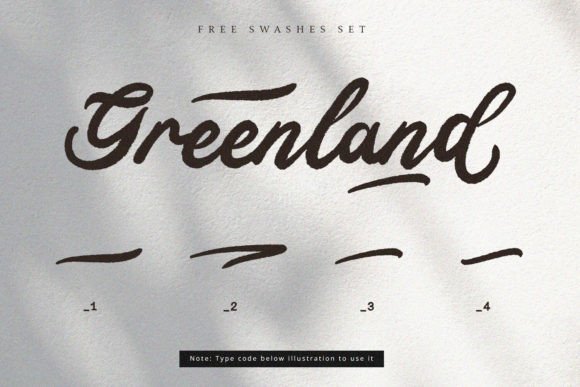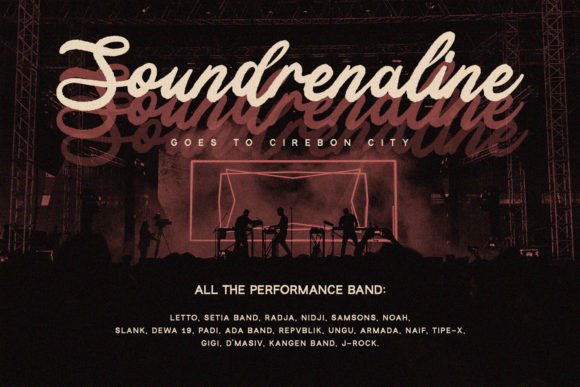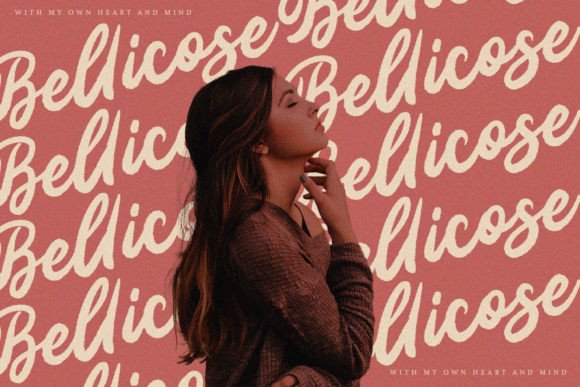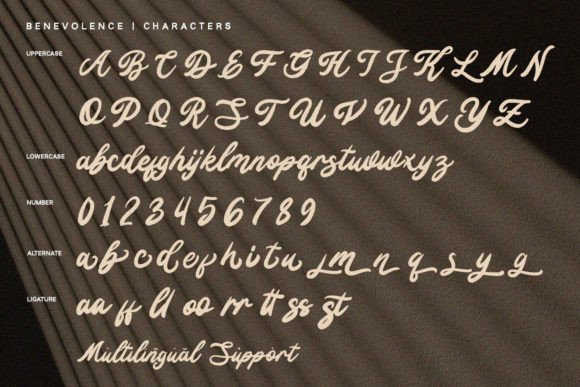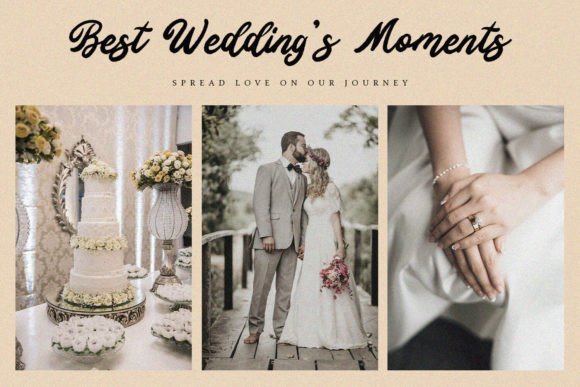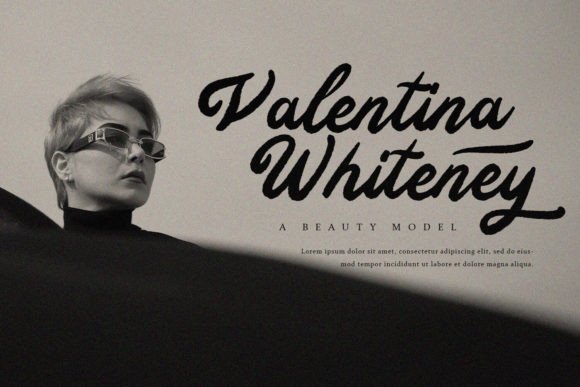
When Handwritten Touches Bring Designs to Life
Have you ever been in a moment where you’re brainstorming ideas for a special project, and suddenly a spark of creativity hits you? Perhaps it’s the perfect phrase for a wedding invitation or the perfect title for a new business venture. That’s exactly what happened to many designers when they discovered the Benevolence Font.
This stylish and elegant script font adds a touch of sophistication to any design, making it perfect for wedding invitations, thank you cards, quotes, greeting cards, logos, business cards, and more. The Benevolence Font is a valuable tool for designers looking to add a handwritten feel to their work, and its versatility makes it a must-have for any creative project.
Benevolence Font Key Features
- Unique Characteristics: Benevolence Font features a unique blend of modern and classic design elements, with subtle nuances that evoke a sense of elegance and sophistication.
Benevolence Font Review
I recently had the chance to work with the Benevolence font, and overall, I was quite impressed. ✨ The font has a unique, elegant feel to it that works well in a variety of contexts. One of the things I liked most about Benevolence is its ability to evoke a sense of warmth and sophistication, making it perfect for use in luxury branding or high-end marketing materials.
One of the standout features of Benevolence is its extensive character set, which includes a wide range of accents and language support. ✨ This makes it an excellent choice for designers working on international projects or those who need to cater to diverse audiences.
- ⚠️ The font can be a bit challenging to read in small sizes, so it’s essential to use it at a larger point size or in conjunction with other typography elements.
- ⚠️ The font’s elegance can sometimes come across as overly formal or even stuffy, which may not be suitable for more casual or creative projects.
Overall, I think Benevolence is a solid choice for designers who need a high-end, elegant font. While it may have some limitations, the benefits far outweigh the drawbacks, making it a worthwhile addition to any designer’s toolkit.
For the best results, use the Benevolence font in combination with a clean and simple background design.
The Benevolence font is ideal for:
- Quote graphics and inspirational posters